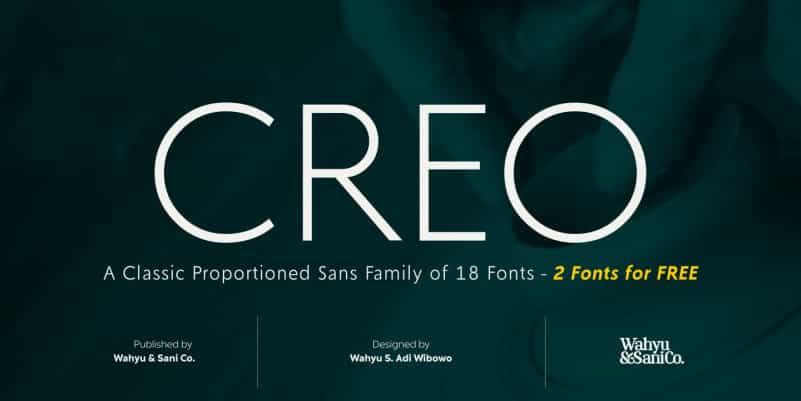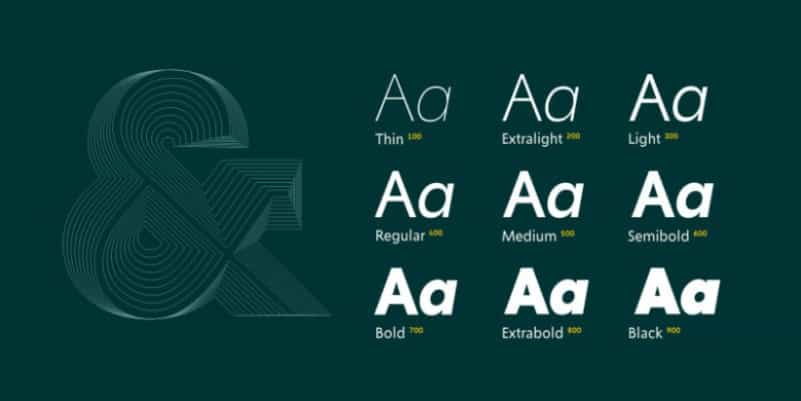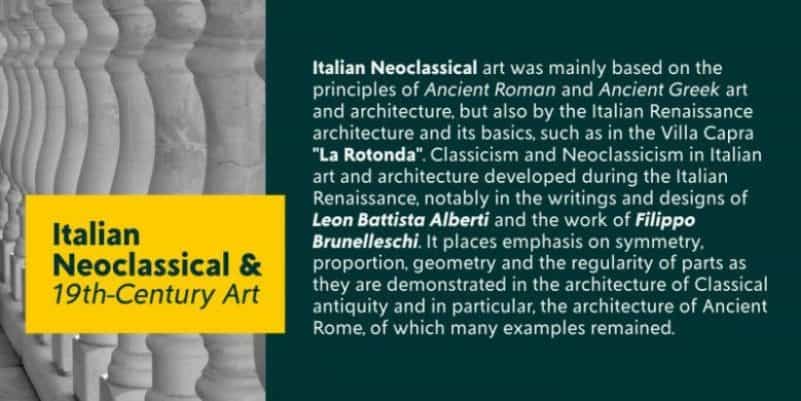
Introducing Creo Font. It is a clean cut, high legibility, balanced typography sans serif typeface with 18 styles, 9 with normal and italic styles ranging from ultra light to ultra black. The word ‘Creo’ is derived from the Latin language, and its meaning is ‘I create, make, produce’ (verb), which also represents ‘Classic Ratio’.